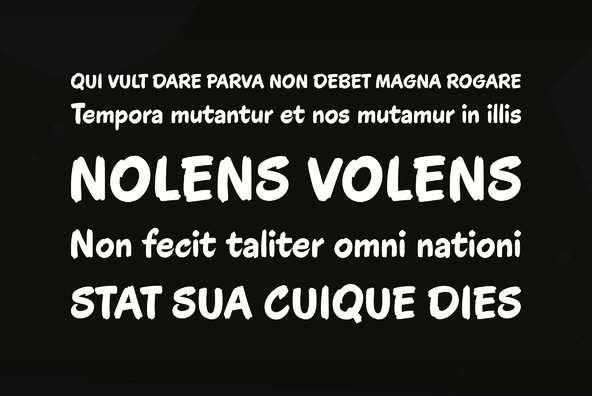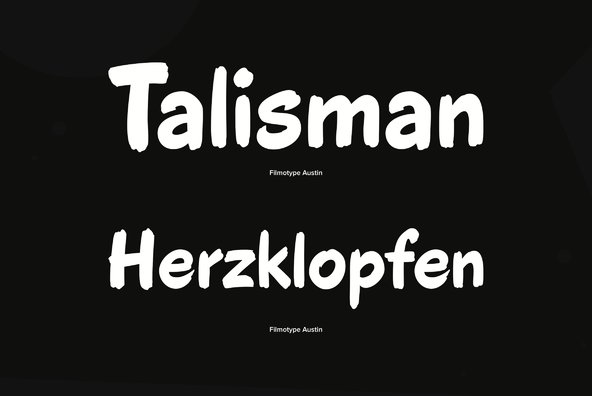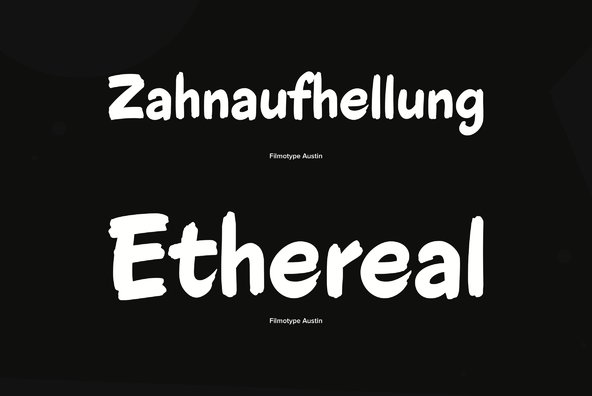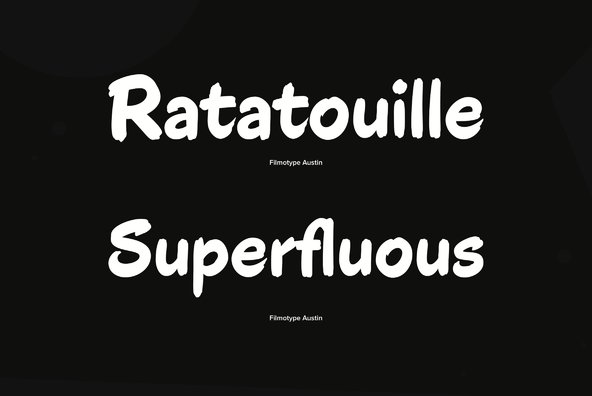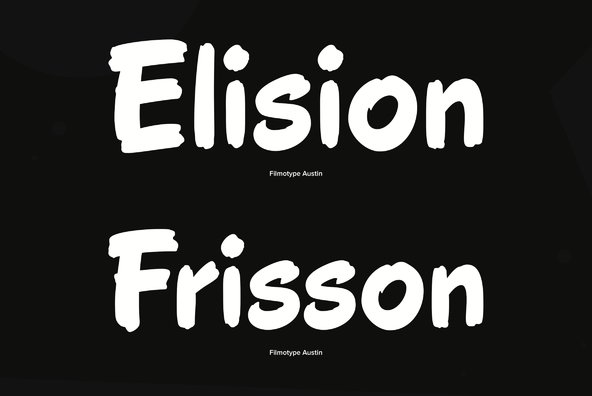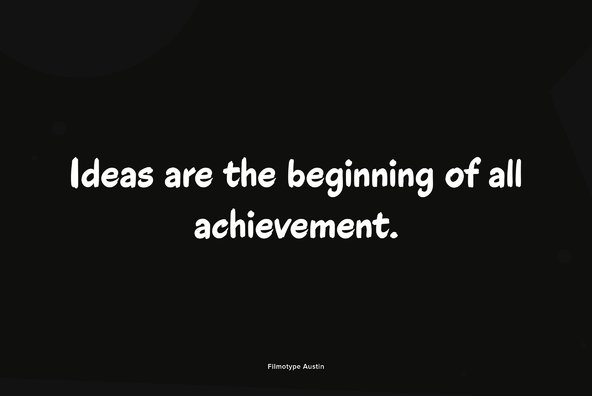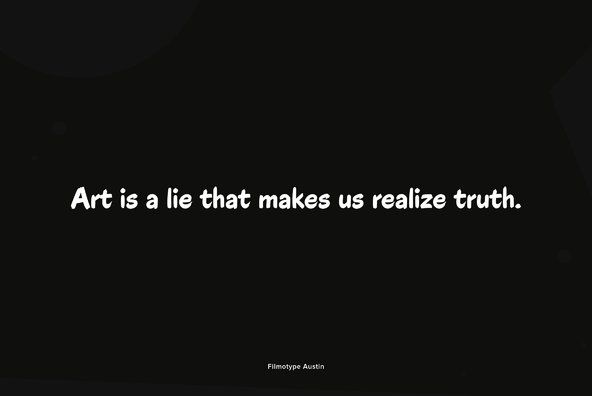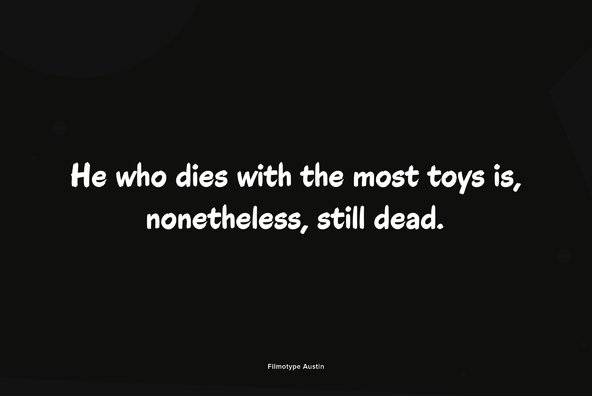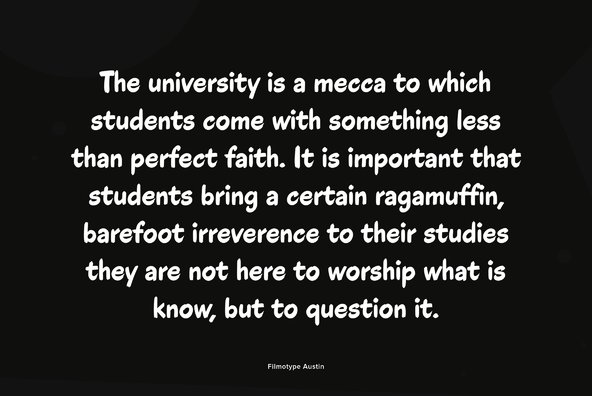
Filmotype Austin
Filmotype Austin was among the companies first brush lettered casuals and was Introduced by Filmotype in the early 1950s, it perfectly captures the mid-century playfulness of paint brush sho-card lettering while providing comfortable readability.
Filmotype Austin was developed from the original font filmstrips and includes a full international character compliment, automatic fractionals, ordinals, and a nice compliment of alternate characters and ligatures creating a genuine hand painted look in dynamic OpenType format.